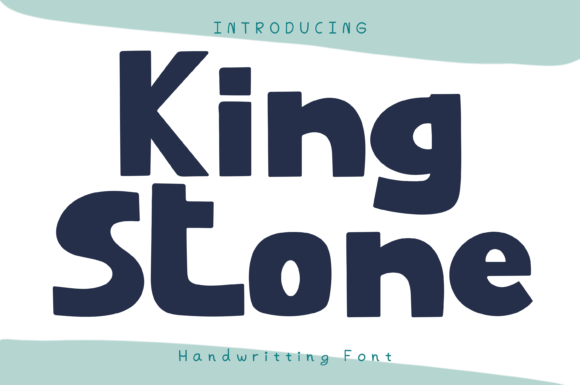
Unleash your creativity with King Stone Font, the ultimate display font that's sure to make your designs shine. Dive into a world of limitless possibilities as you explore the depths of this captivating handwritten font, crafted by the renowned AchiArt. With its bold and playful personality, King Stone Font will transform your ideas into captivating masterpieces. Its versatility knows no bounds, effortlessly adapting to a wide range of projects, from whimsical invitations to striking logos.
Let King Stone Font take your imagination on an exhilarating journey. Its organic, flowing strokes evoke a sense of authenticity and warmth, adding a personal touch to your designs. Whether you're designing for print or digital mediums, King Stone Font will leave a lasting impression on your audience. It's the perfect choice for creating eye-catching headlines, inspiring quotes, and expressive branding elements.
Unlock the full potential of your creative vision with King Stone Font. Its carefully crafted characters exude charm and character, making your designs truly unique. Join the ranks of satisfied designers and creatives who have embraced the power of King Stone Font to elevate their projects to new heights. Get ready to turn heads and leave an unforgettable mark on the world of design. Take the first step towards design excellence and download King Stone Font today!